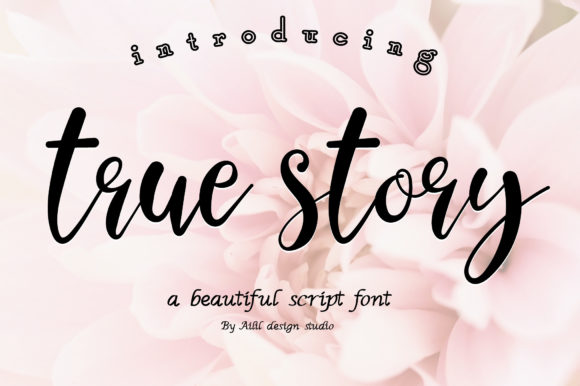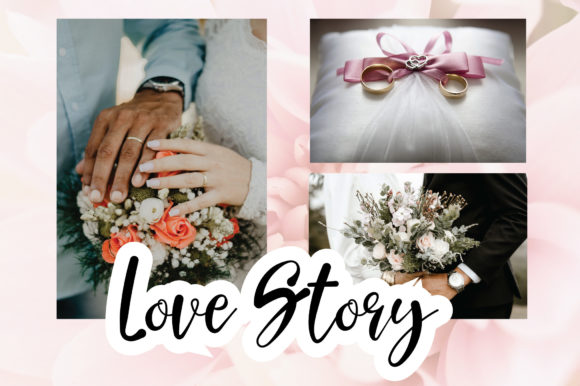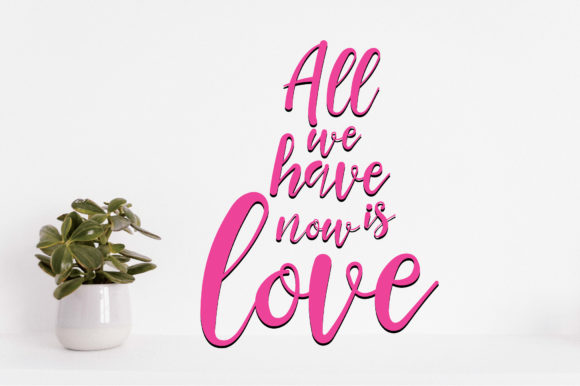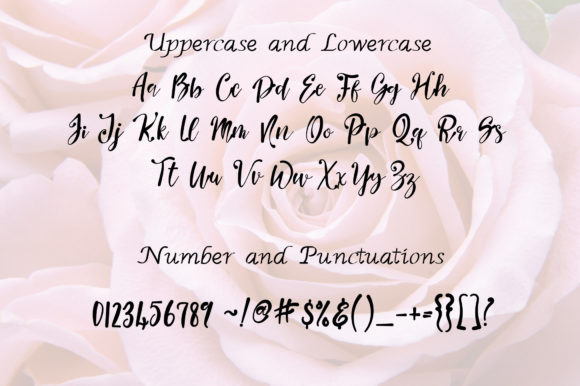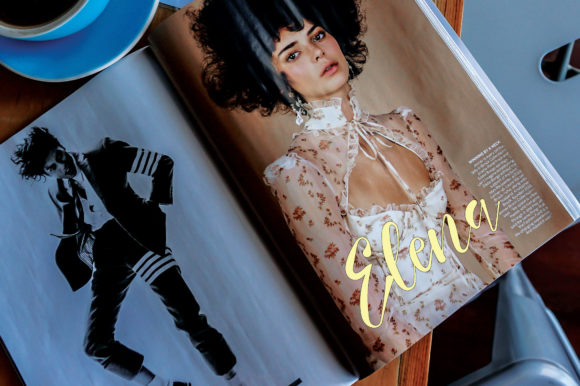
True Story Font
About True Story Font
True Story is a romantic and sweet calligraphy typeface with characters that dance along the baseline. It will add a luxury spark to any design project that you wish to create!